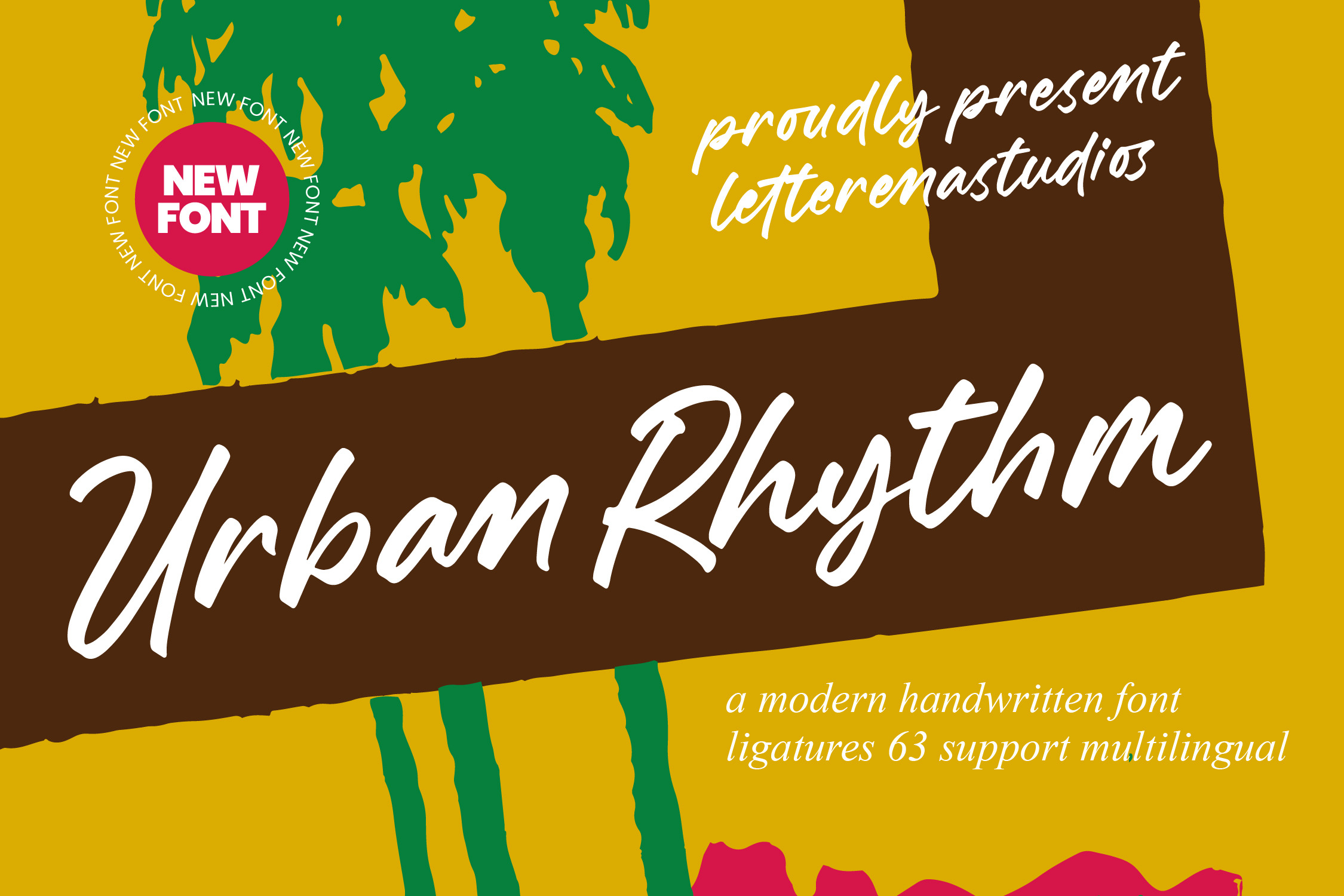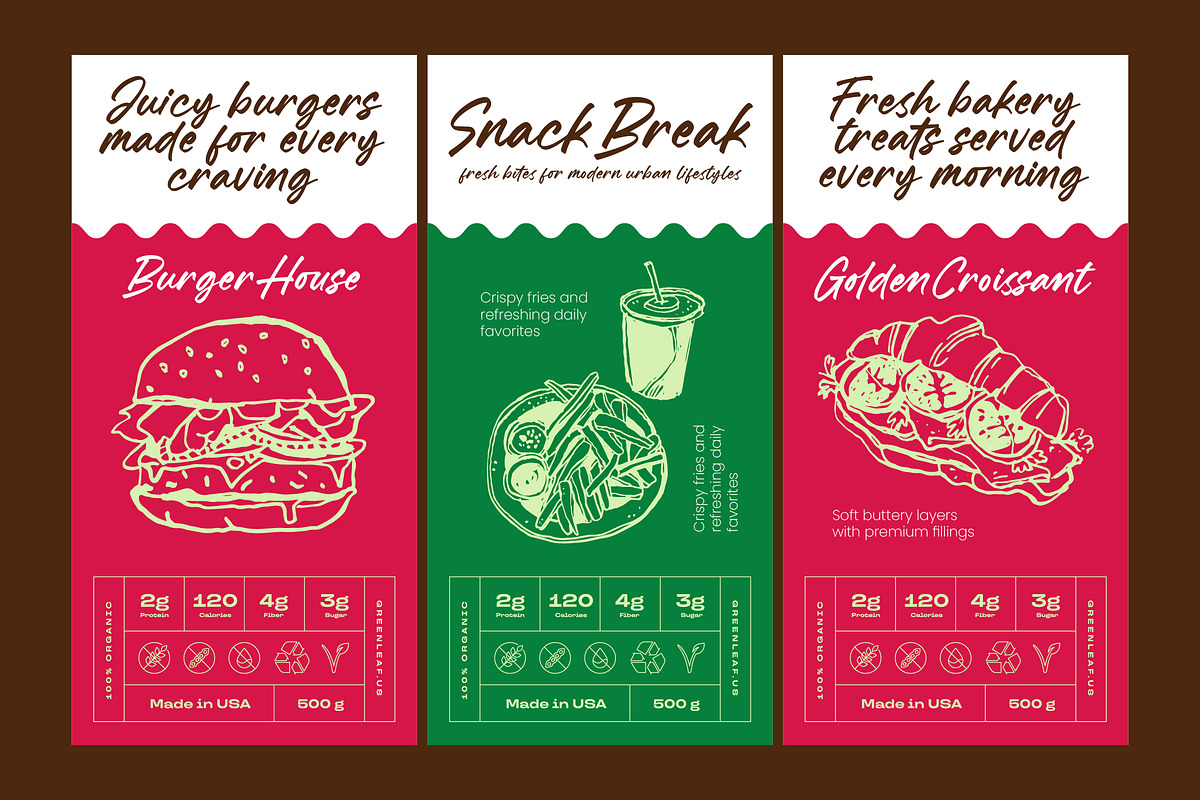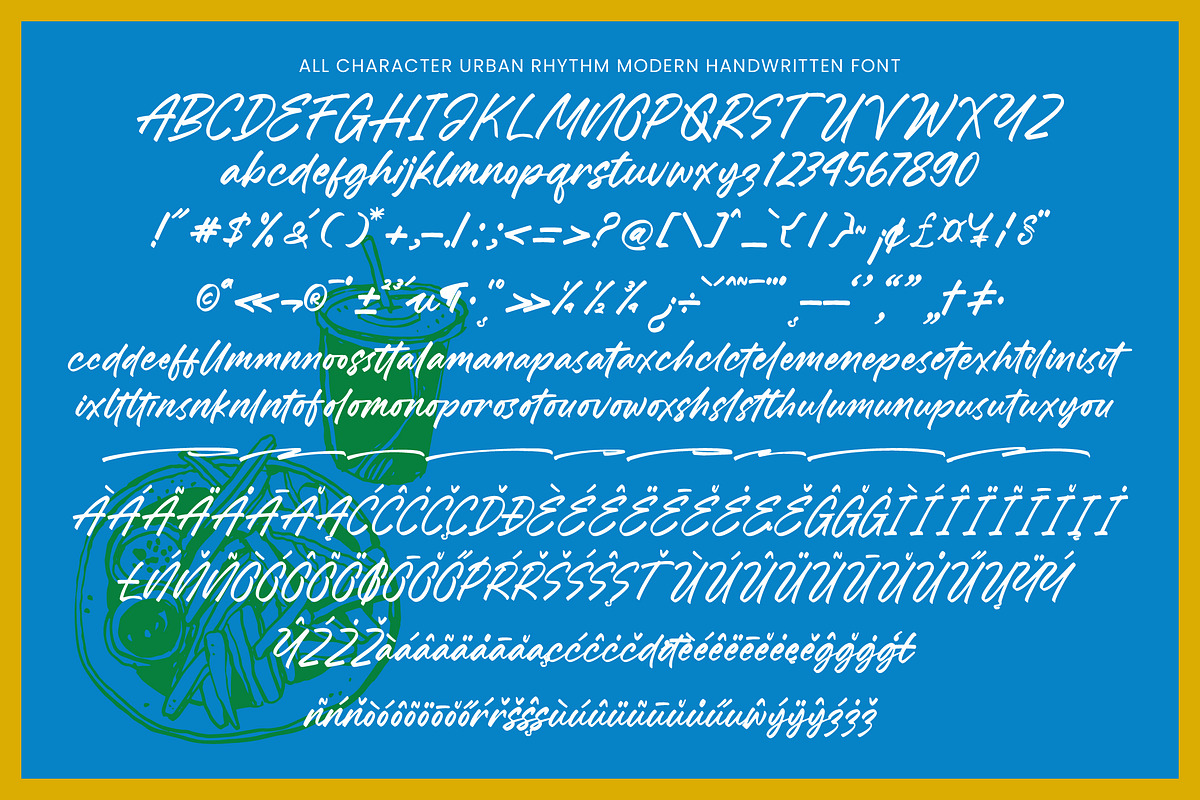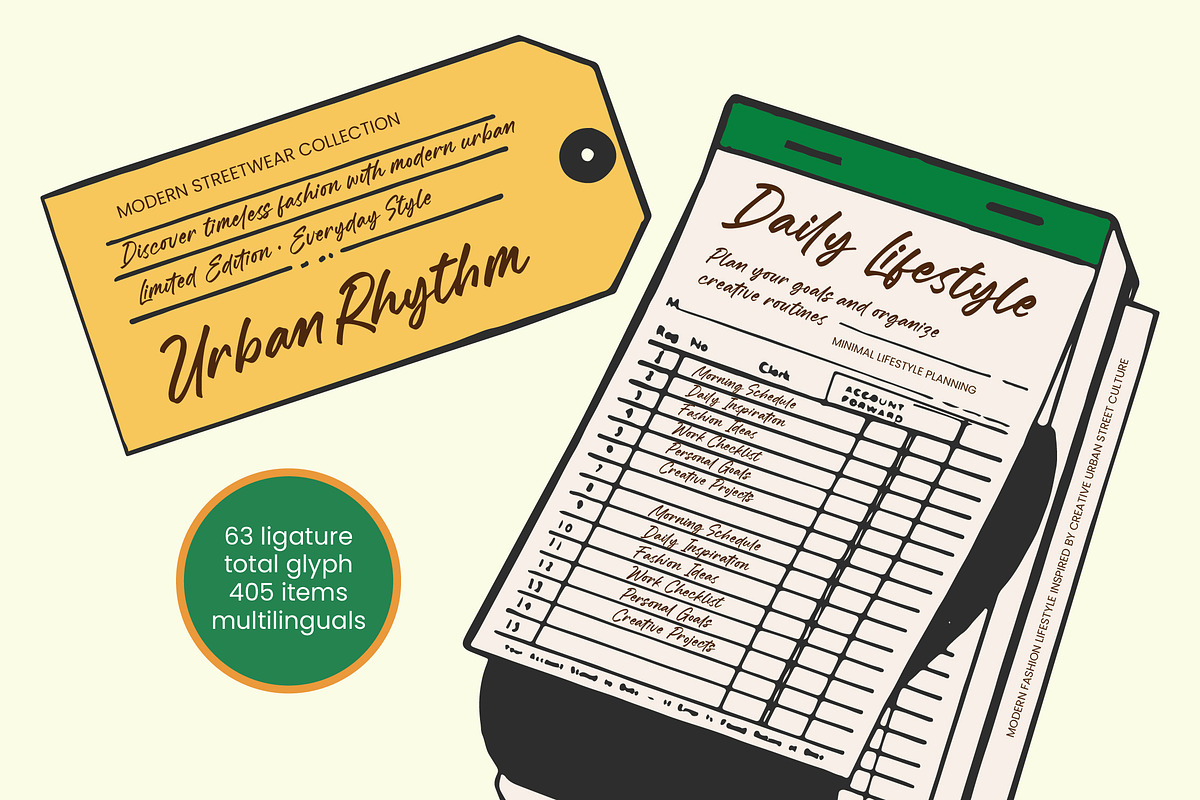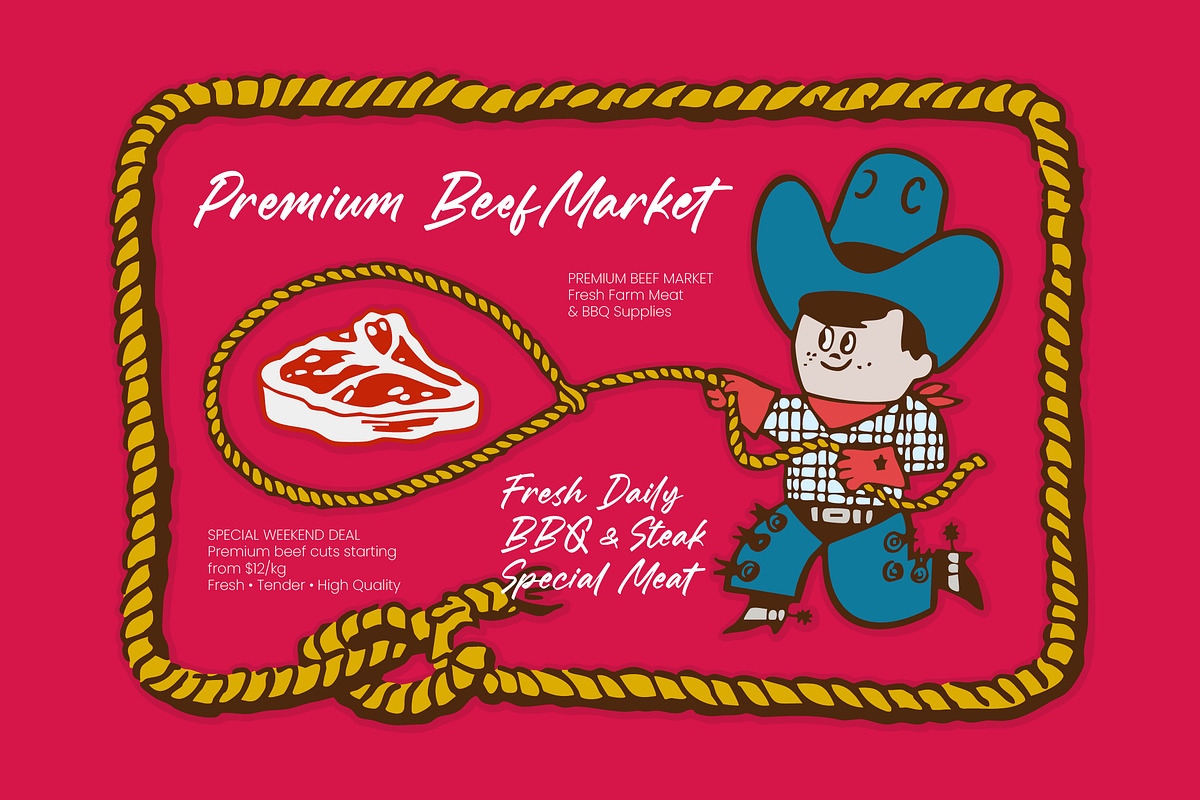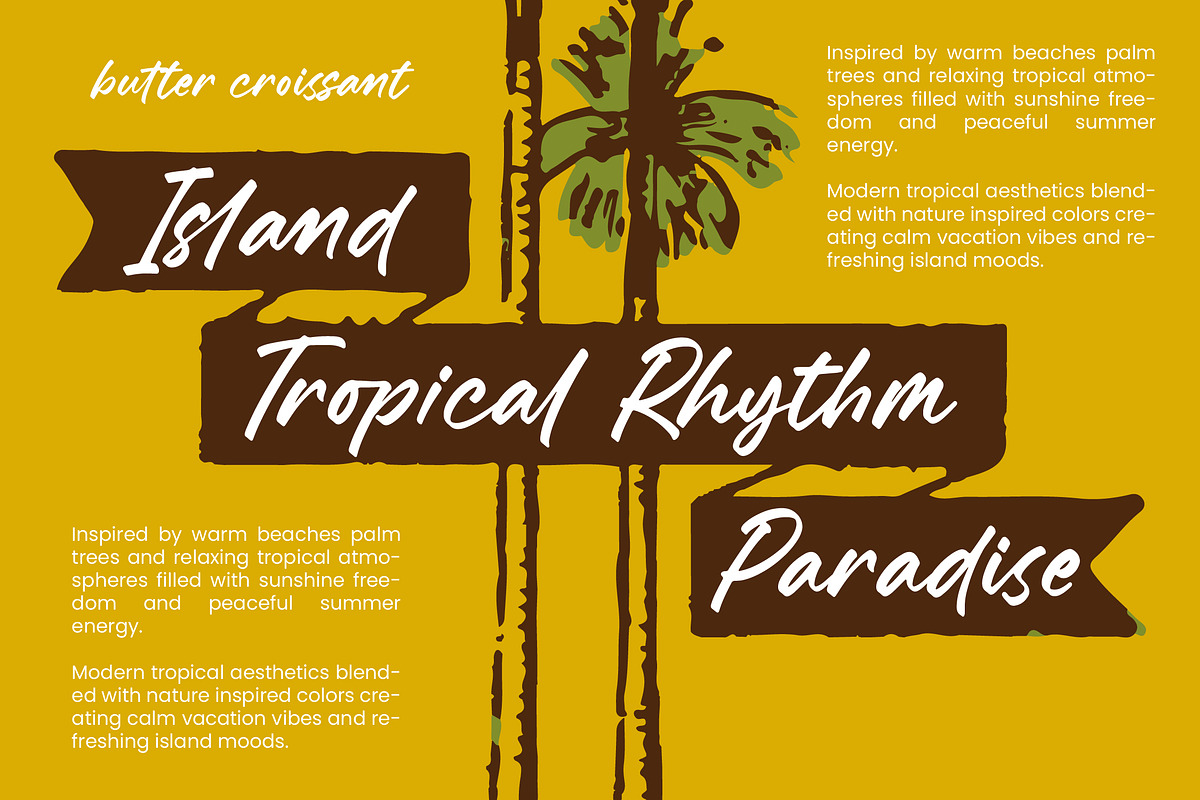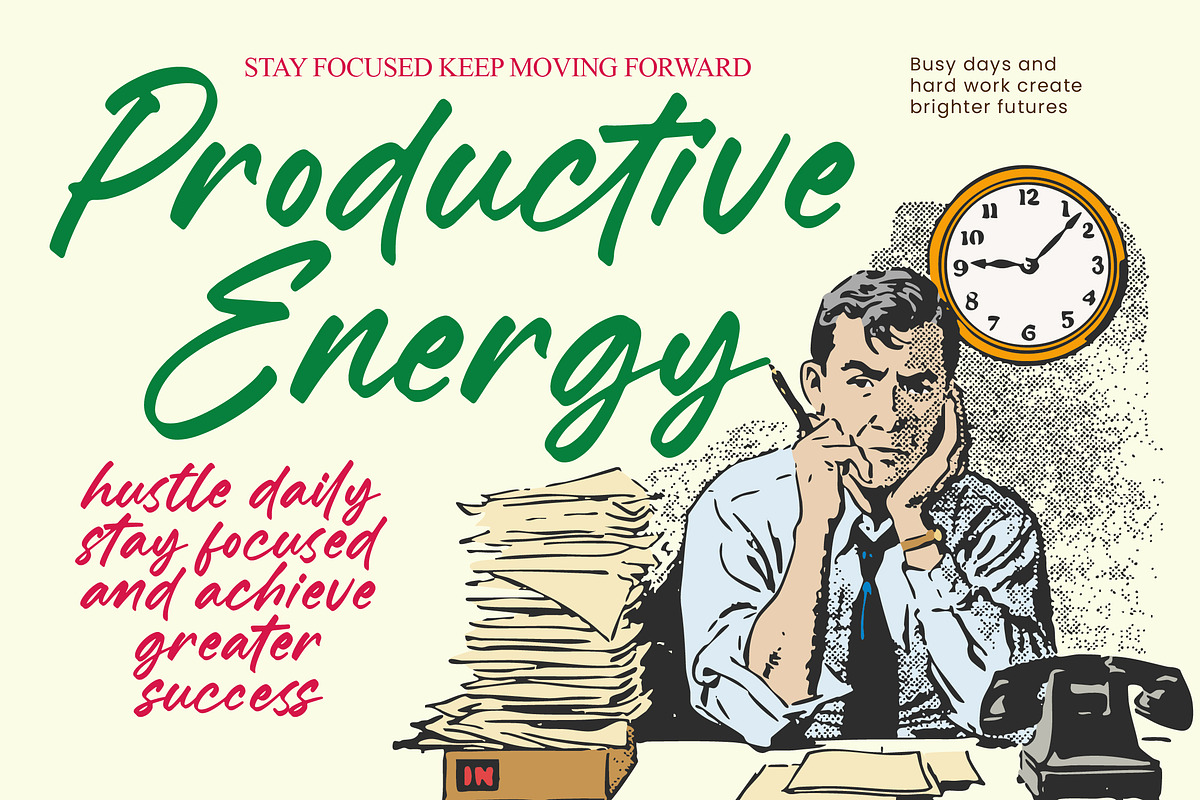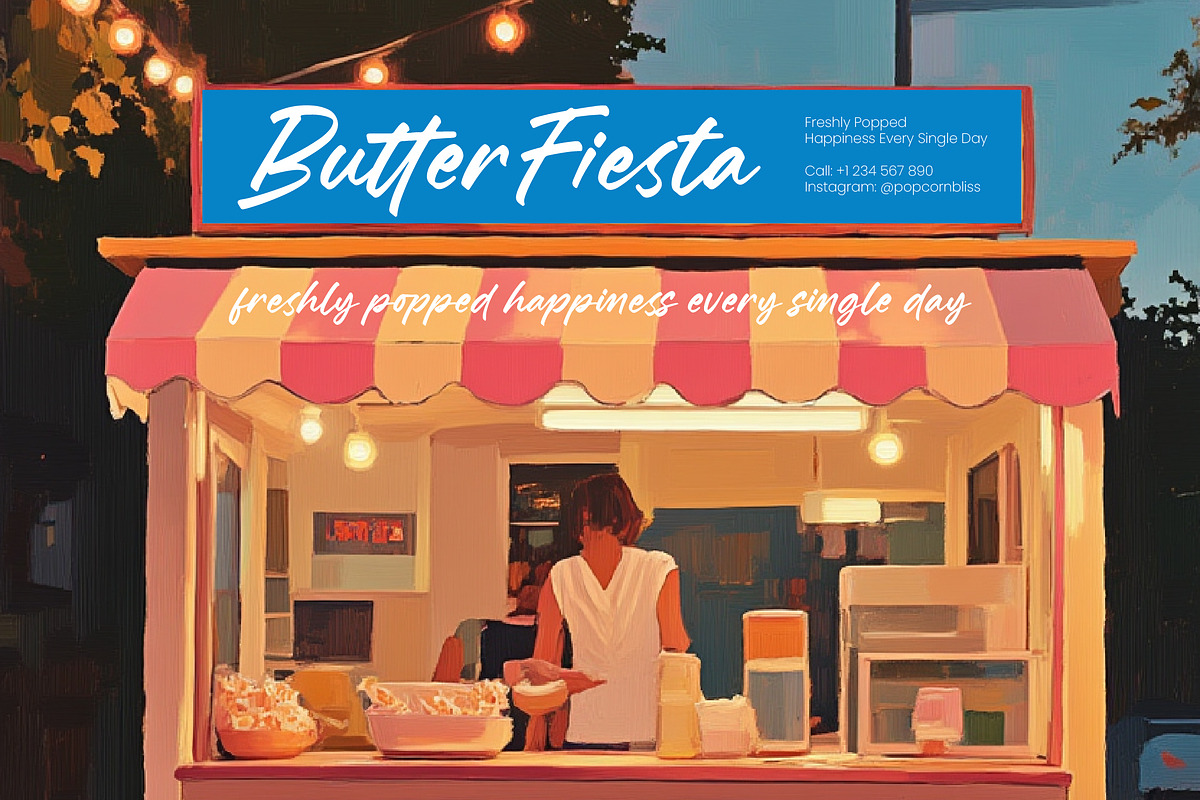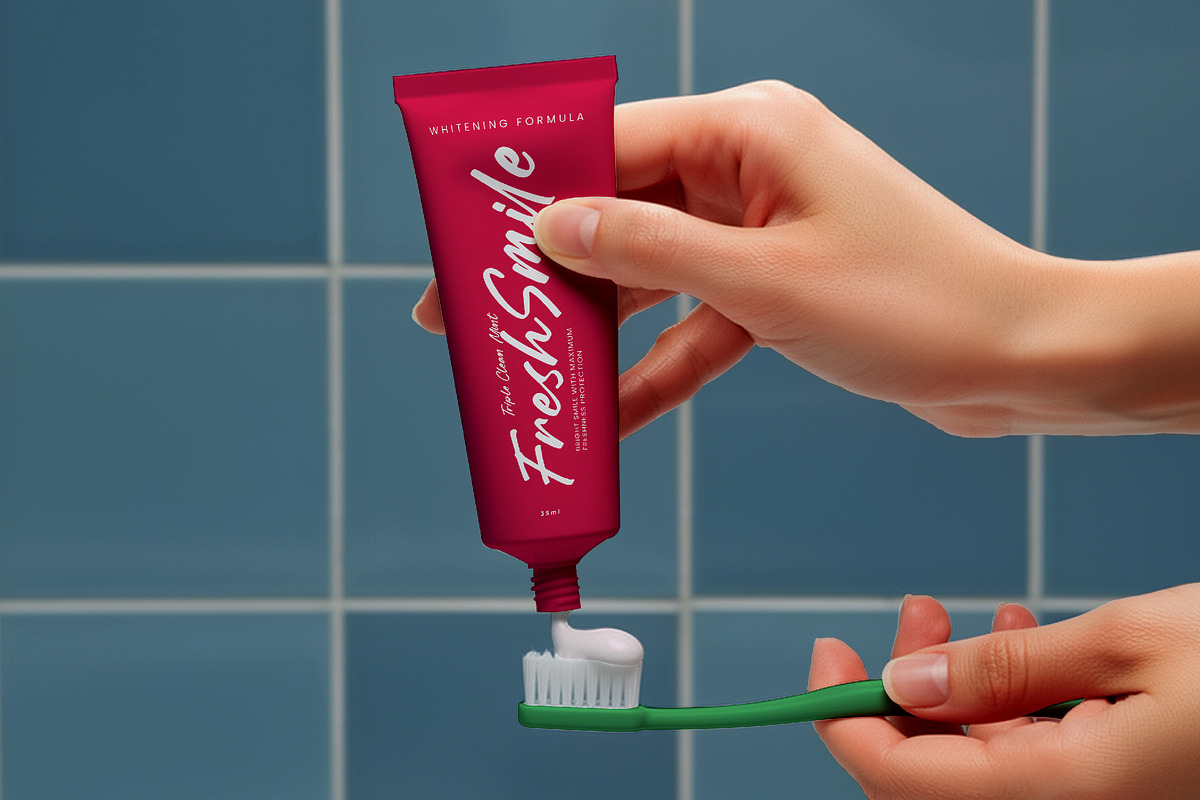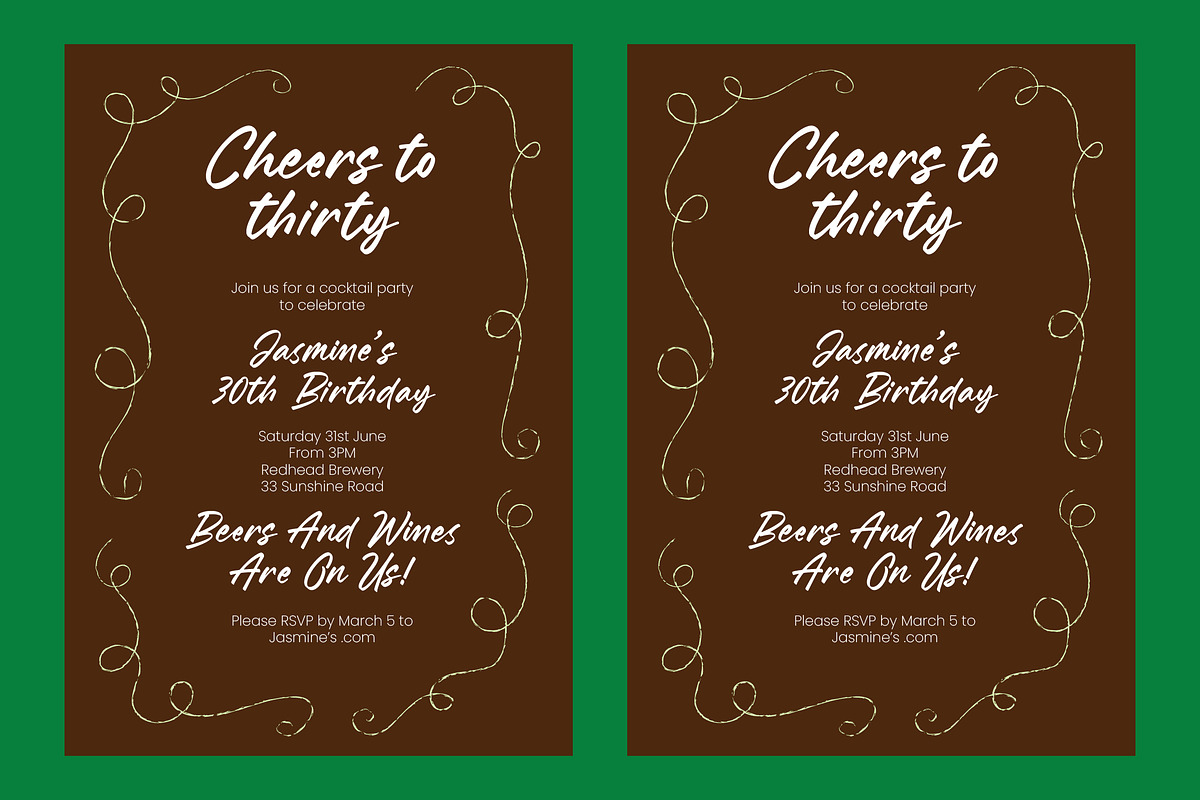
Urban Rhythm Modern Handwritten Font
Urban Rhythm - Modern Handwritten Font , Elevate your creative projects with the effortless energy of Urban Rhythm - Modern Handwritten Font. This expressive script typeface captures the essence of contemporary street culture combined with a sophisticated aesthetic. Its fluid brush strokes create an authentic, hand-drawn feel that immediately grabs attention. By blending casual charm with professional polish, Urban Rhythm - Modern Handwritten Font ensures your designs stand out in any digital landscape.
Designed for versatility, this typeface is the perfect choice for luxury branding, dynamic social media, and high-impact packaging. Its spirited characters make it ideal for editorial design, apparel branding, and lifestyle photography overlays. Whether crafting a modern logo or a premium invitation, Urban Rhythm - Modern Handwritten Font provides the visual personality required to leave a lasting impression on your audience.
Technical excellence defines this release, featuring 63 specialized ligatures that enhance the authentic handwriting experience. With its extensive multilingual support, Urban Rhythm - Modern Handwritten Font adapts seamlessly across global markets, making it incredibly versatile for international projects. This global compatibility ensures your brand voice remains consistent across all international marketing campaigns.
Secure a competitive edge by integrating the distinctive style of this typeface. Urban Rhythm - Modern Handwritten Font is a powerful design asset that balances urban grit with artistic elegance. Transform your vision into a compelling brand story today and experience the unmatched versatility that only Urban Rhythm - Modern Handwritten Font can deliver to your professional toolkit.